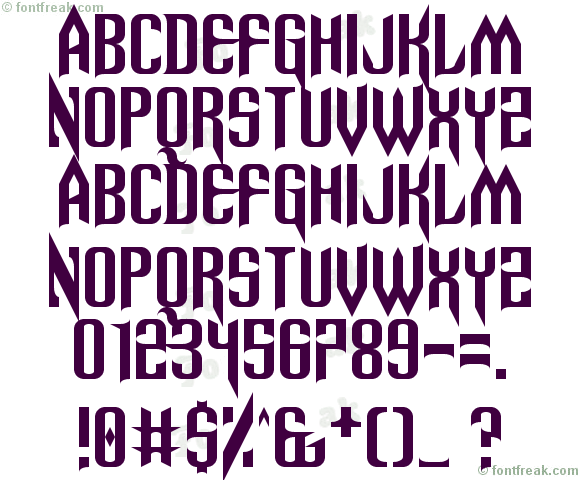
Spinebiting Regular
About Spinebiting Regular
Spinebiting Regular by Andrew McCluskey is a striking display font that captivates with its unique aesthetic. This typeface features bold, angular letterforms that exude a sense of modernity and edge. The stroke weight is consistent, yet the sharp lines and distinct shapes add a dynamic contrast that draws the eye. The spacing between characters is intentionally tight, enhancing its compact and impactful appearance. Decorative elements are integrated into the letters, giving them an almost architectural feel, making it perfect for a wide range of creative applications.
This font is particularly well-suited for use cases such as movie posters, where its boldness can convey intensity and excitement. It also shines in branding for tech startups, offering a contemporary look that aligns with innovation. Restaurant menus can benefit from its eye-catching style, providing a memorable visual identity that stands out to patrons. Additionally, Spinebiting Regular is ideal for graphic designers looking to create striking promotional materials or event flyers that demand attention. Content creators will find it useful for social media graphics, ensuring their posts catch the viewer's eye.